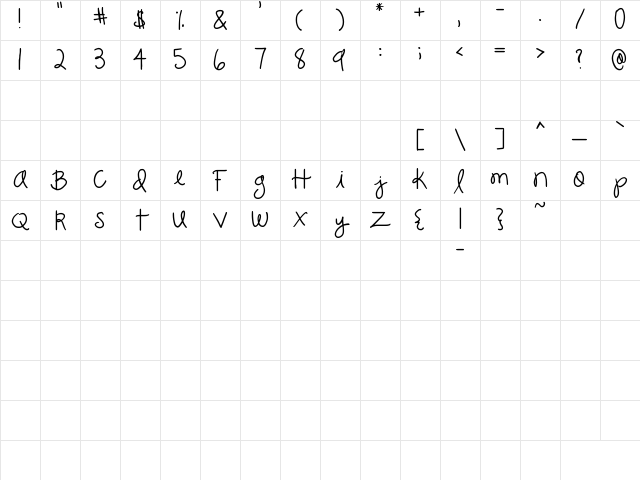
2Peas lovebug Regular Free Font
2Peas lovebug Regular
Foundry: Two Peas in a Bucket
Designer: Amy Grendell
Design Context for 2Peas lovebug
2Peas lovebug is a composed and adaptable typeface that performs quietly and consistently across a wide range of design contexts.